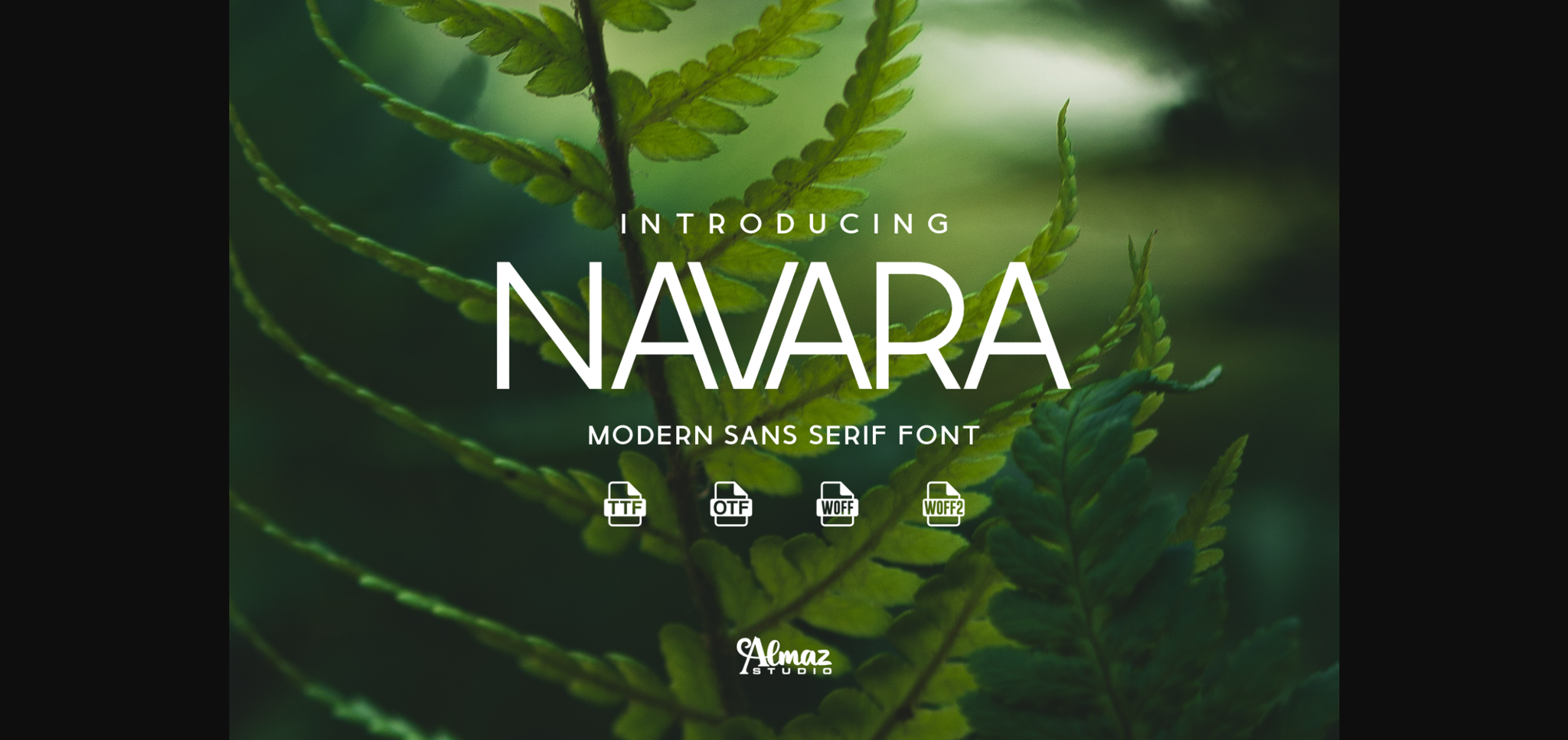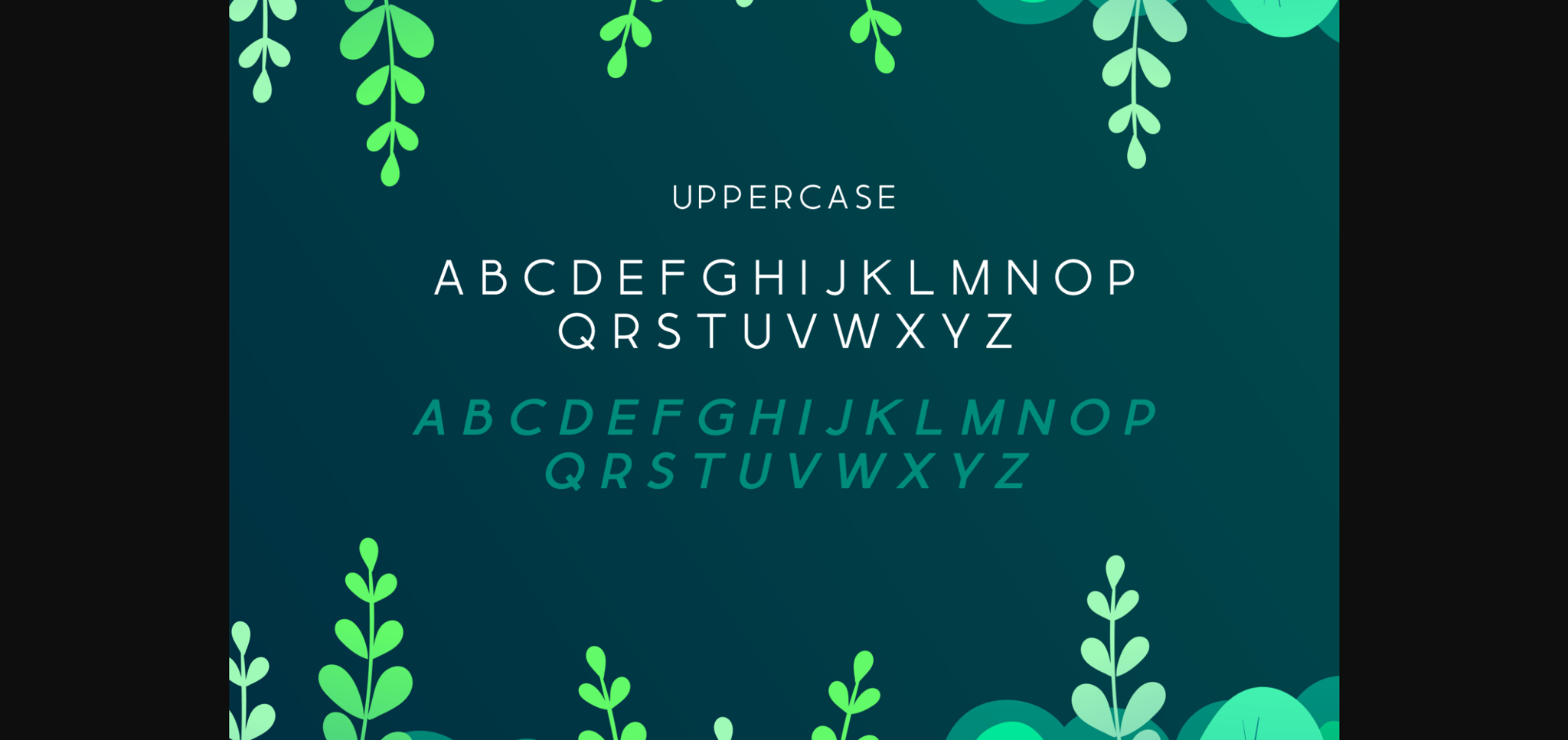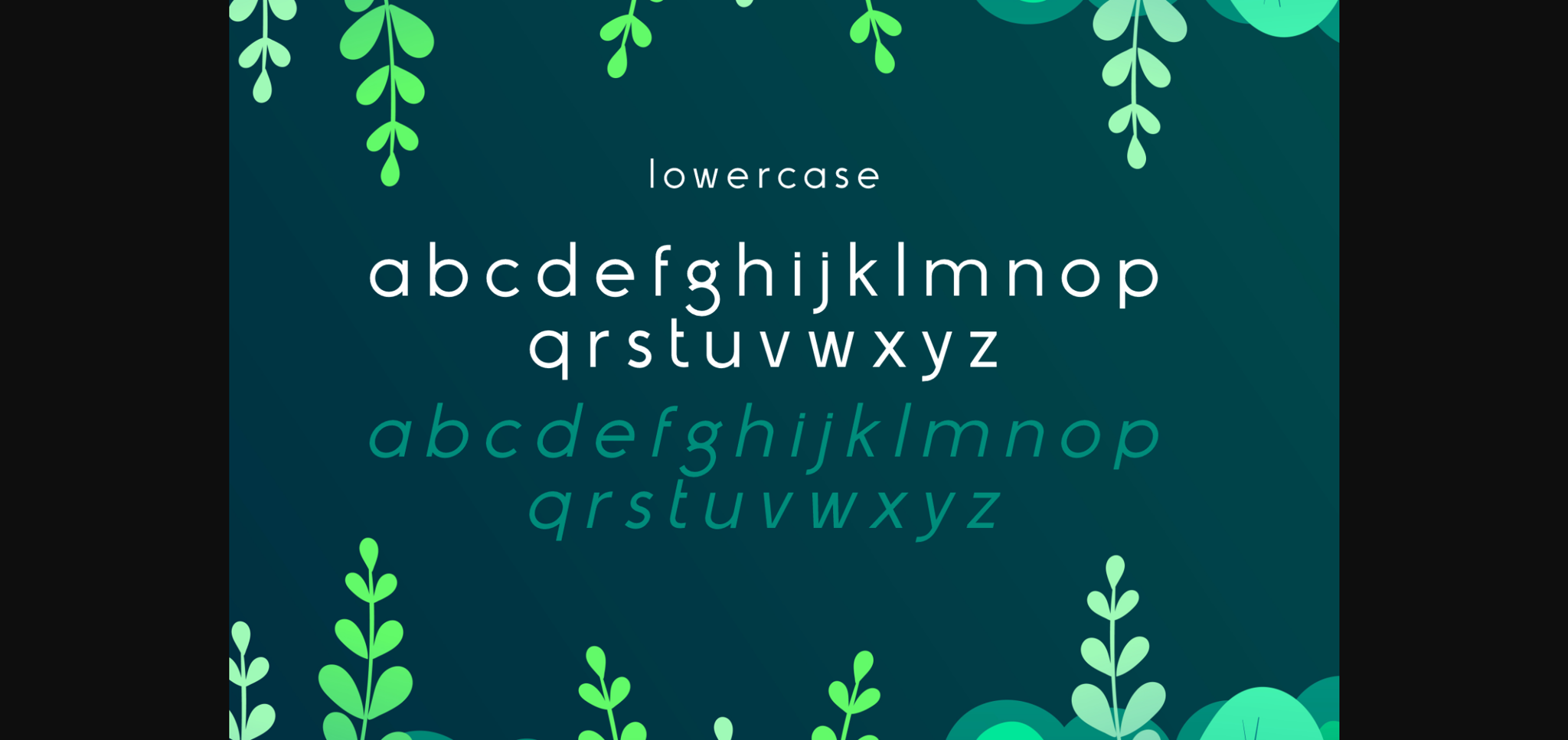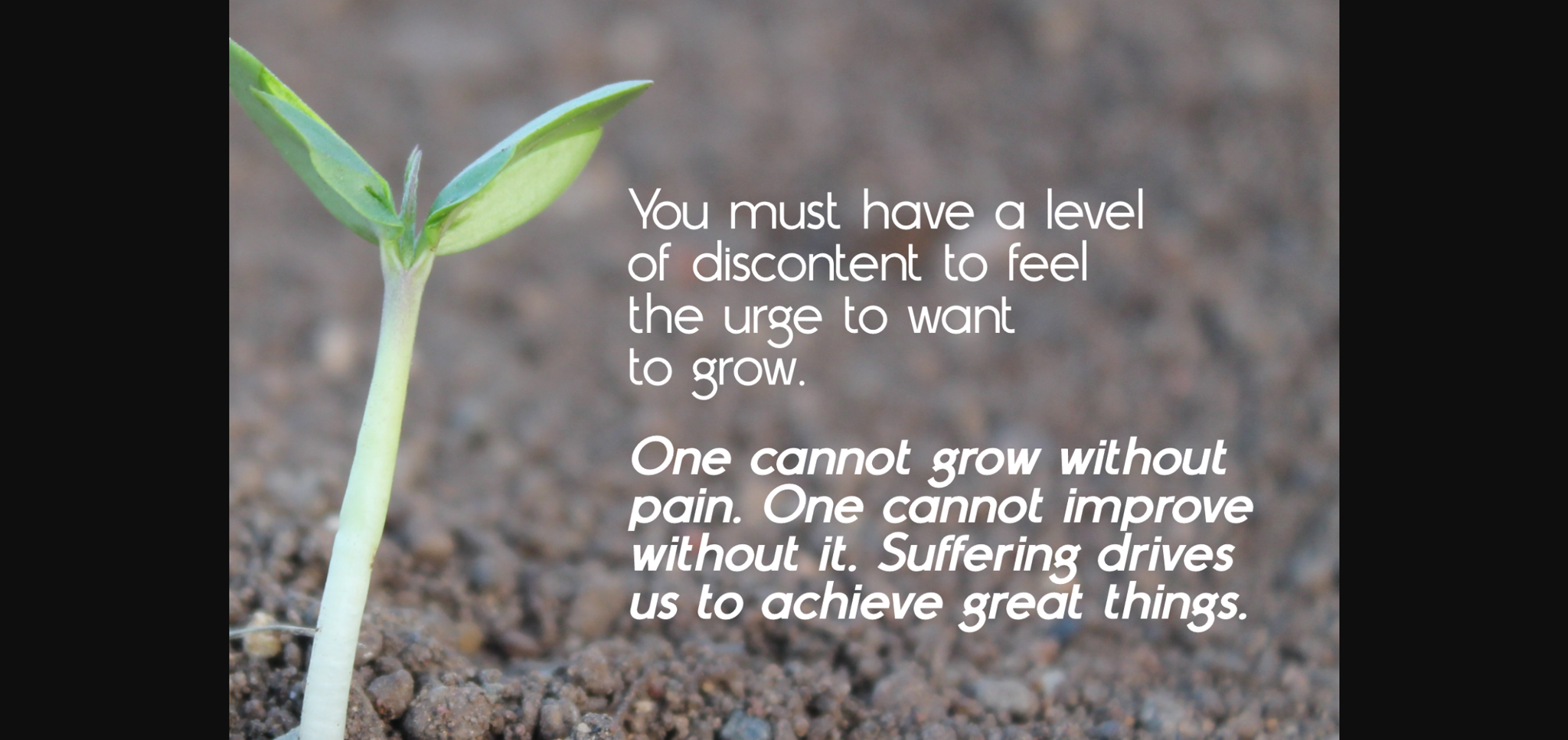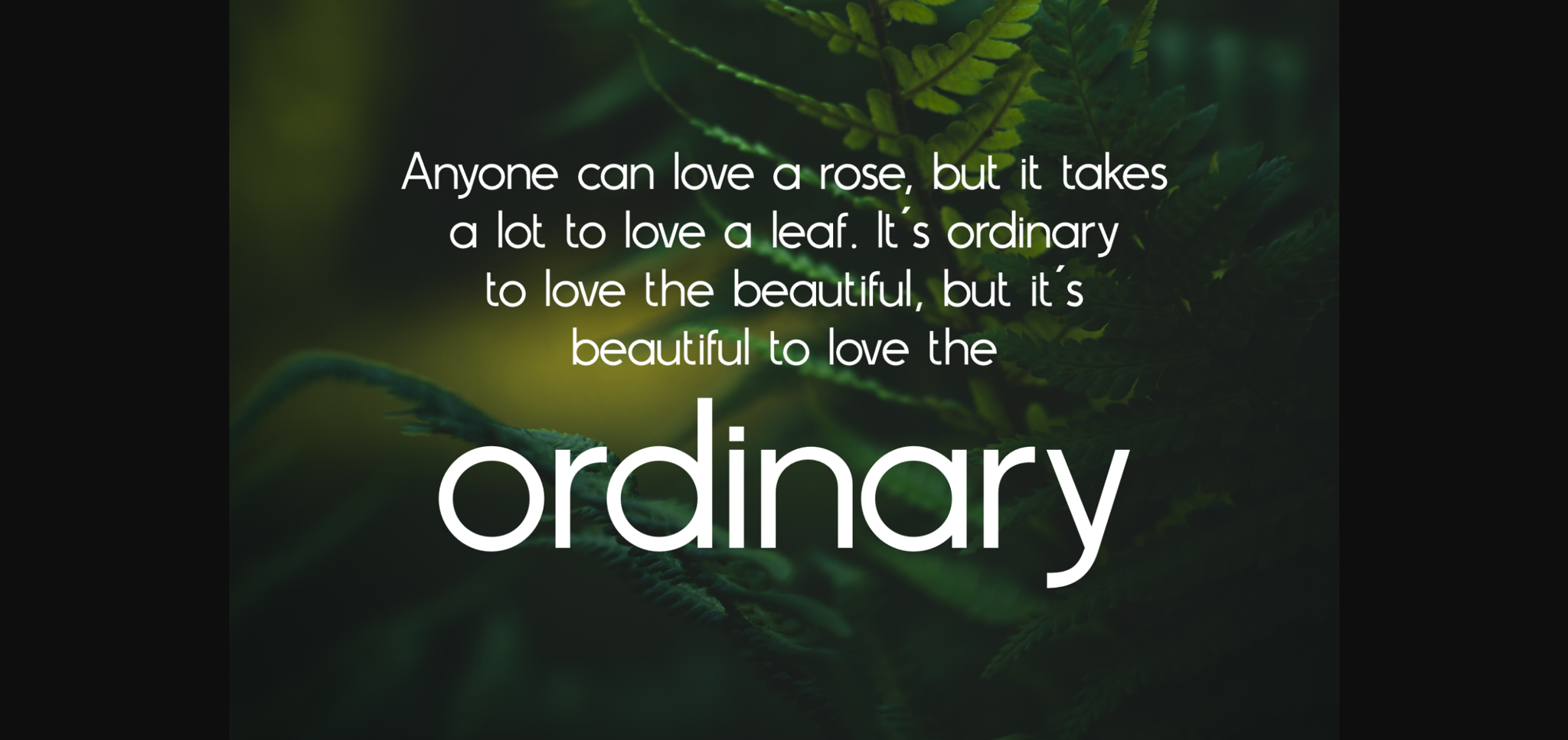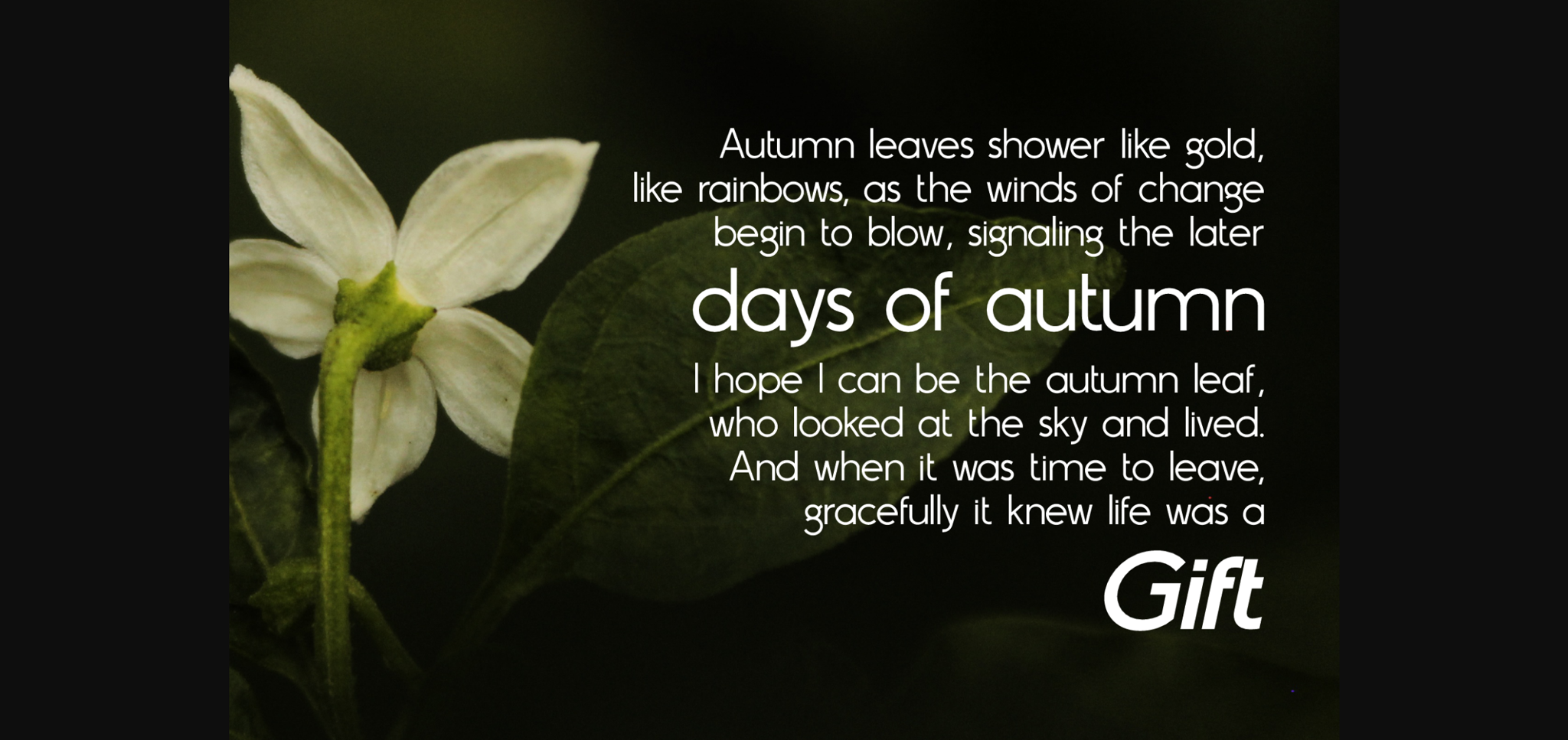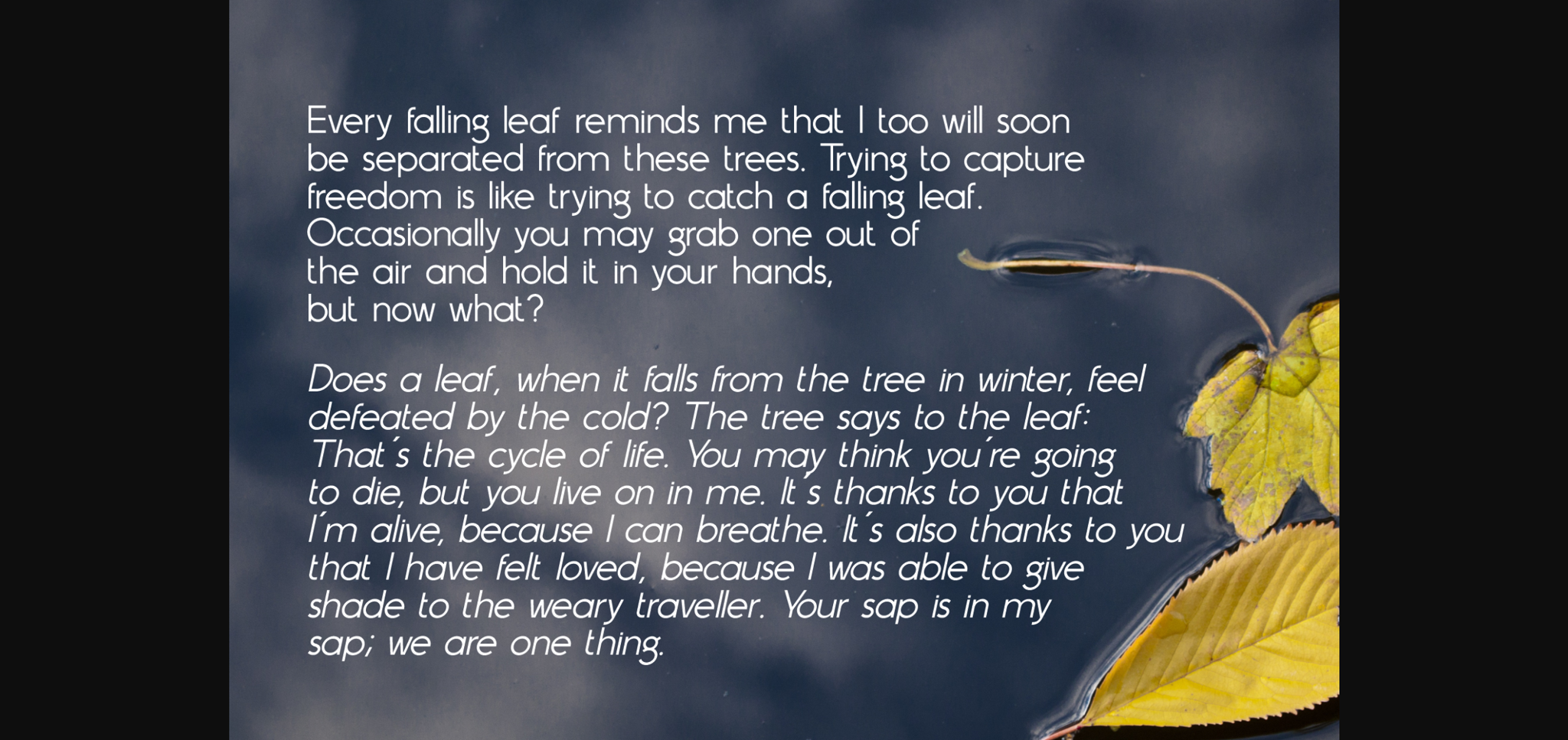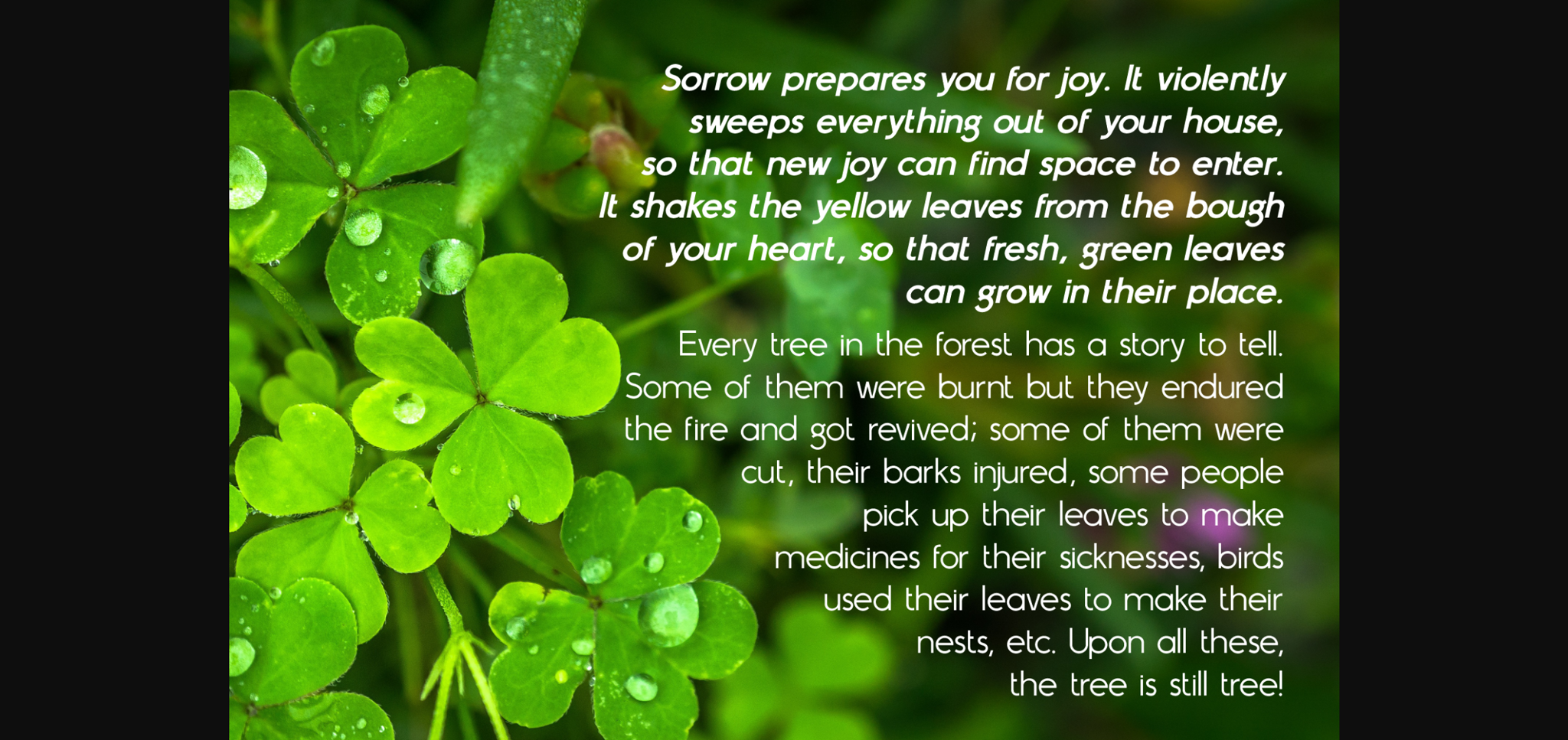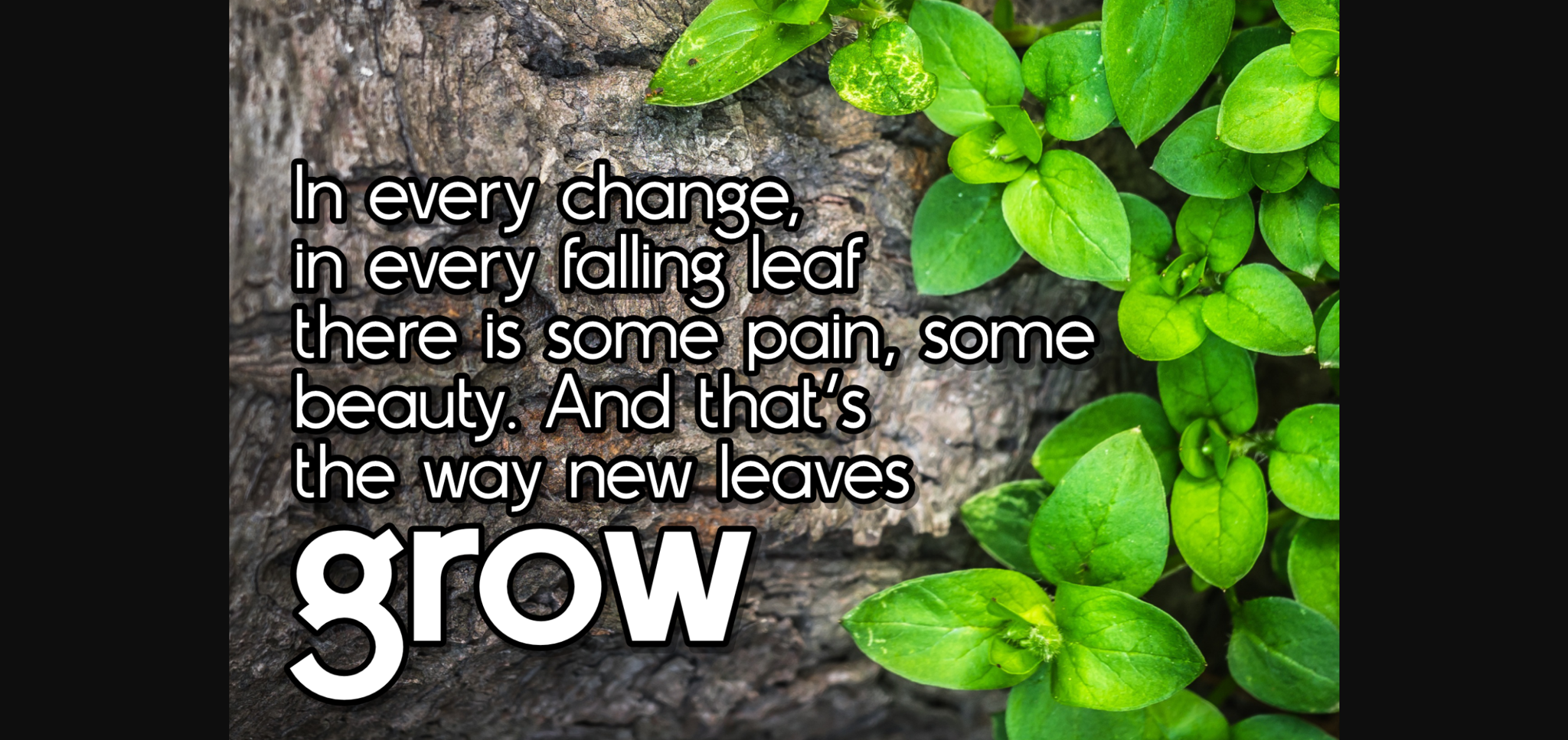
Navara Font
About Navara Font
Navara is a brand new elegant typeface. Use it to create posters, web graphics, game graphics, t-shirts, videos, signs, eBooks, logos, and more. A very strong font character will make your design different and more attractive. This font has several alternatives built into it, perfect for creating logo designs, badges, web fonts, magazines, and more. Upon closer inspection you will notice the terminals of some of the characters are slightly turned inwards, this detail gives its distinctive and friendly personality.